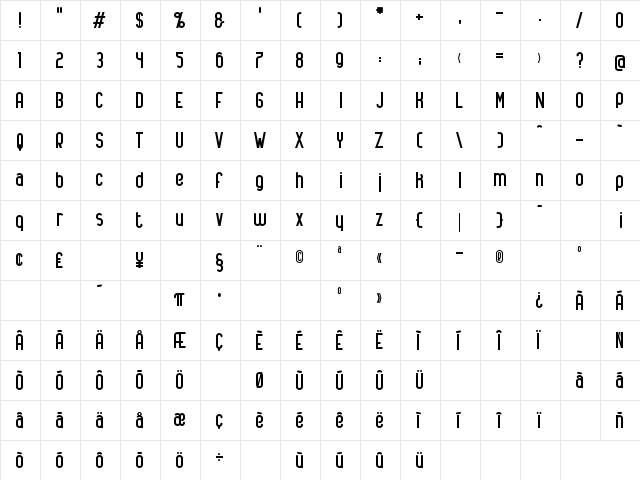
Alanya Regular
Design Context for Alanya Typeface
Alanya is a composed and adaptable typeface that performs quietly and consistently across a wide range of design contexts.
Pro Tip: Pair Alanya with a font of contrasting weight or personality to build a more expressive typographic hierarchy.